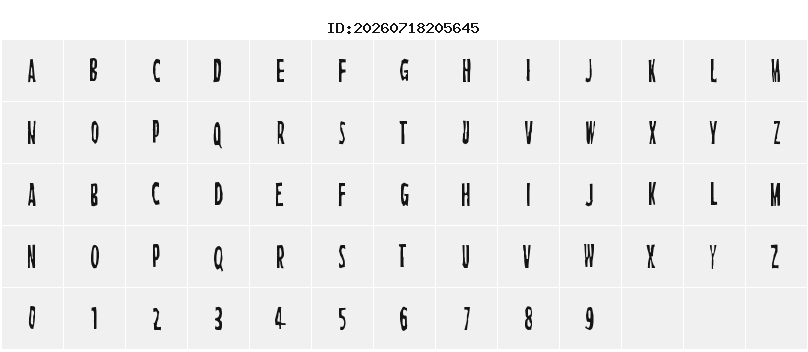
• Font Name: Crab
• Full Font Name: Crab
• Version: Version 1.00 May 2, 2016, initial release
• Designer: junkohanhero
• Manufacturer: junkohanhero
About Crab.ttf
Crab.ttf is a modern, elegant sans-serif font designed for ultimate readability and visual harmony. Perfect for branding, headlines, web design, and print materials.